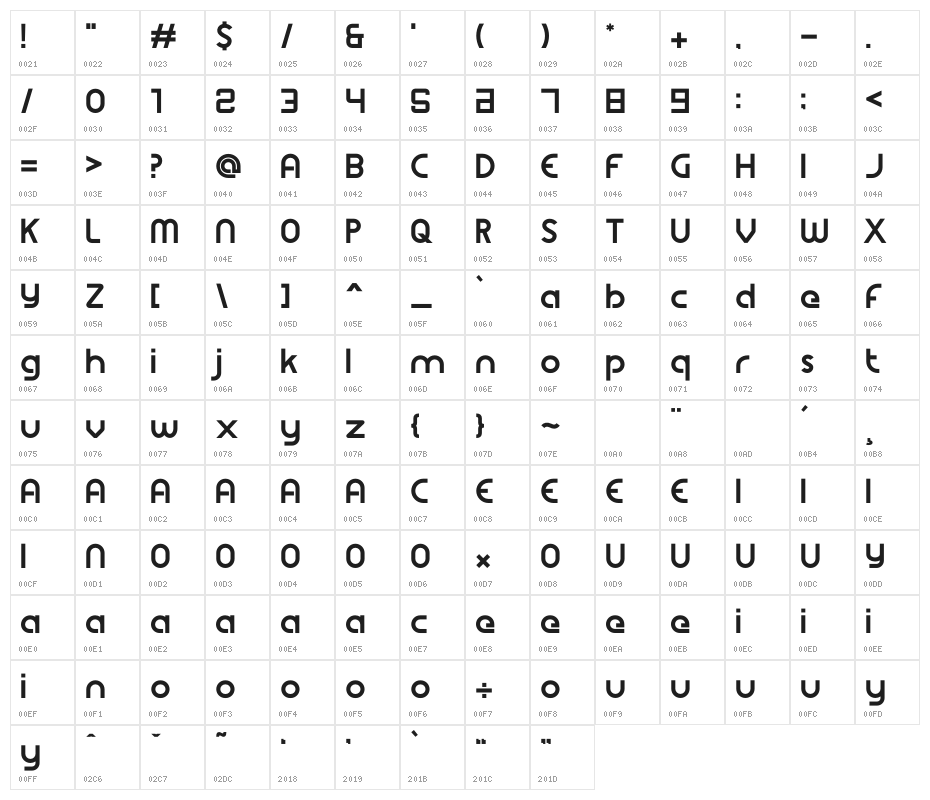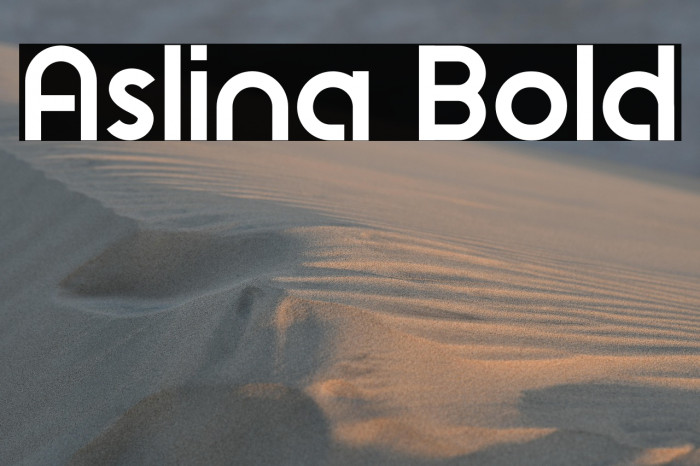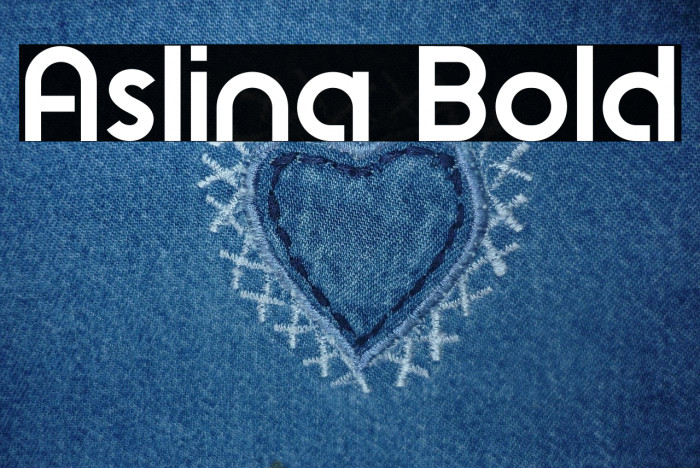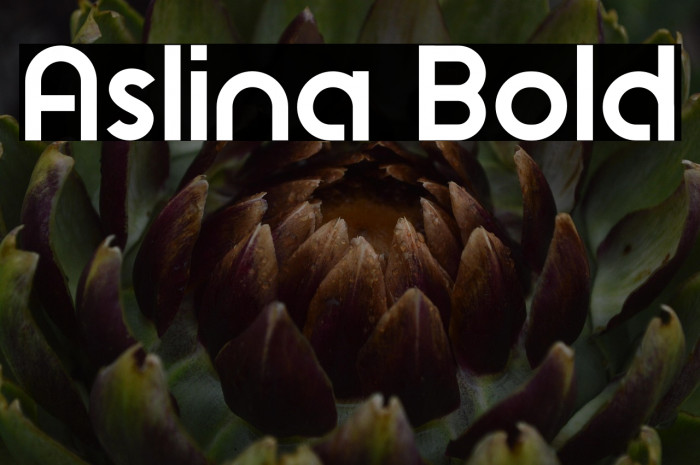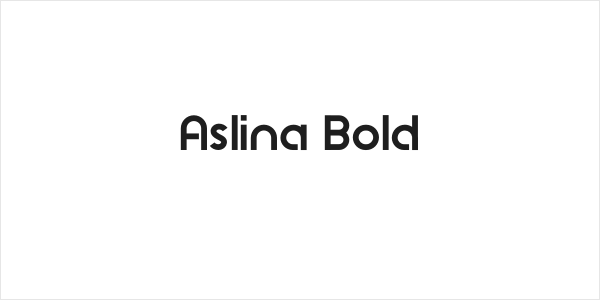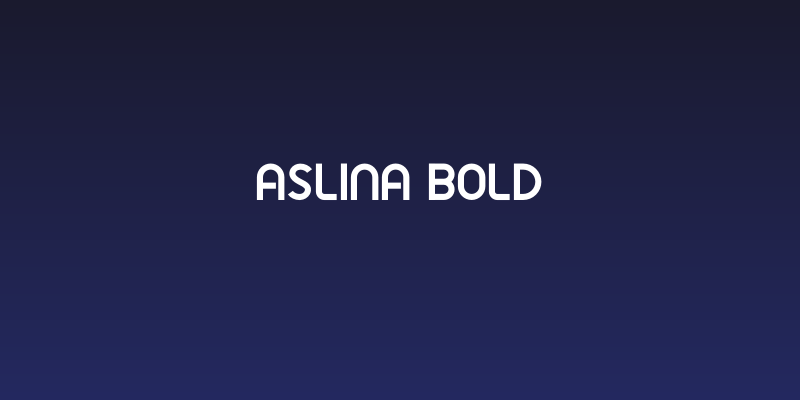
Aslina Bold Font
Aslina Bold Description
This font features a bold, geometric sans-serif style with clean lines and a modern aesthetic. The characters are uniformly thick, providing a consistent and robust appearance. The uppercase letters have a strong presence, while the lowercase letters maintain a similar geometric structure, ensuring readability and visual harmony. The numerals are distinct and align well with the overall design, making them suitable for various applications. Special characters are included, offering versatility for different contexts. The font's design is both contemporary and functional, making it ideal for digital and print media.